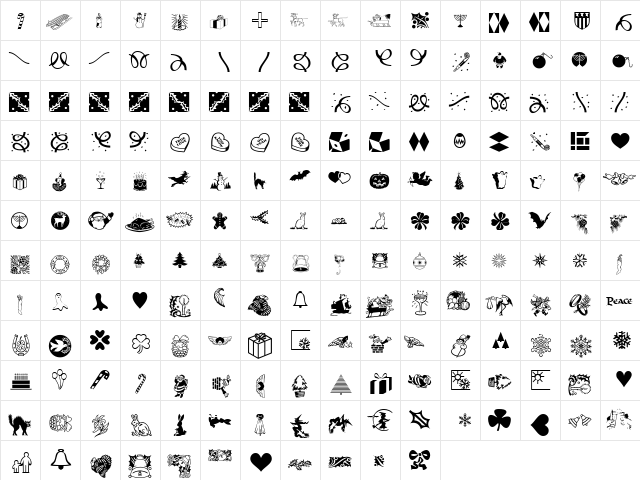
DoodleDingbatsThreeSSK Regular Font Preview
DoodleDingbatsThreeSSK Regular
Design Context for DoodleDingbatsThreeSSK Typeface
DoodleDingbatsThreeSSK is a composed and adaptable typeface that performs quietly and consistently across a wide range of design contexts.